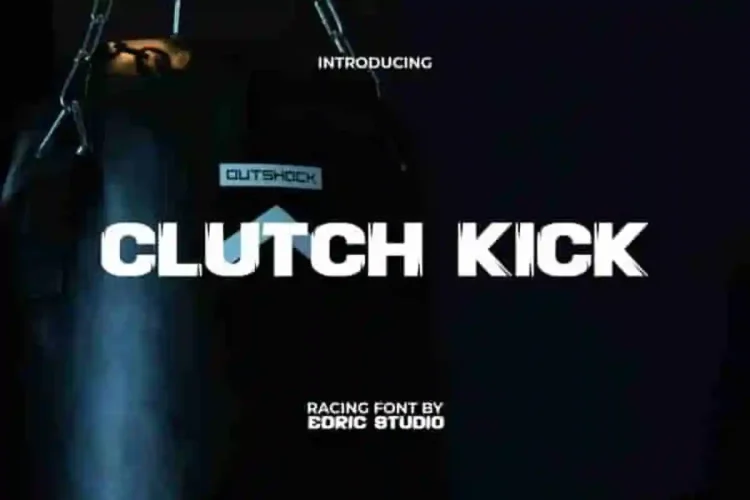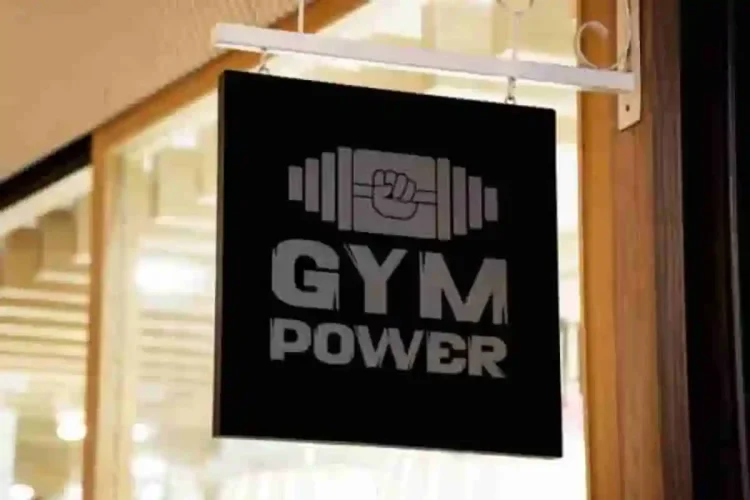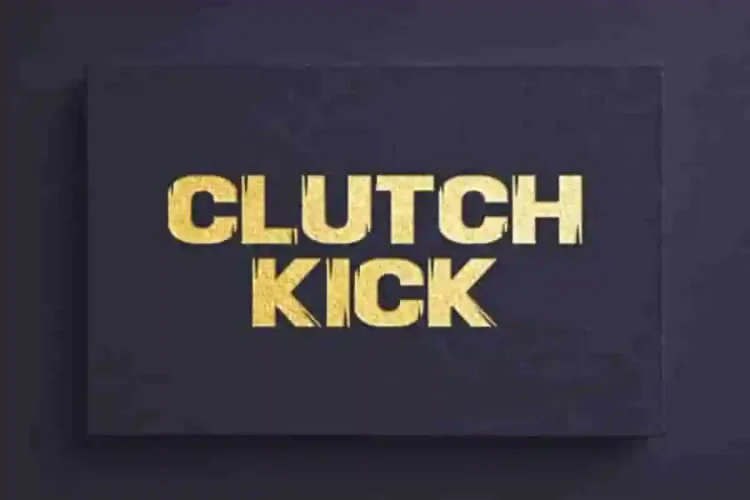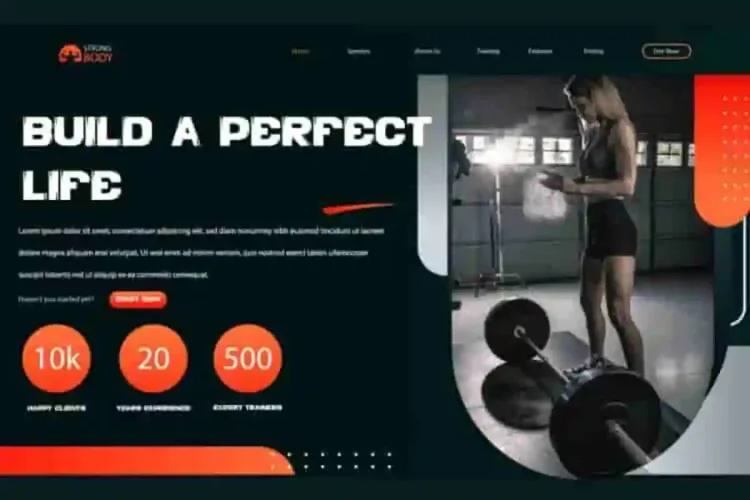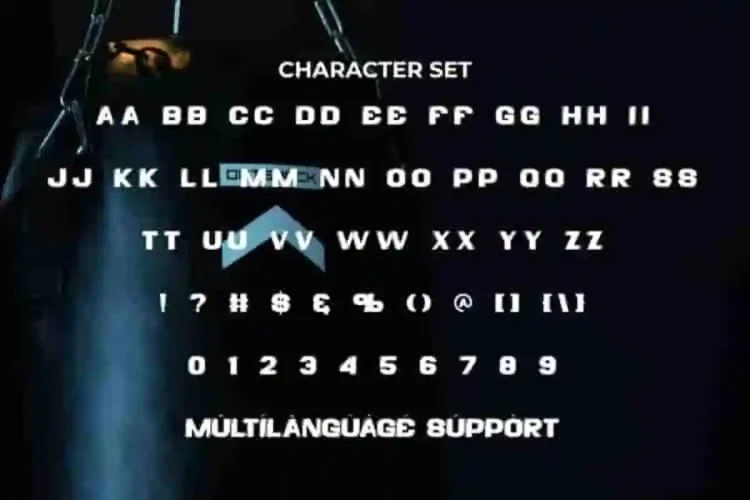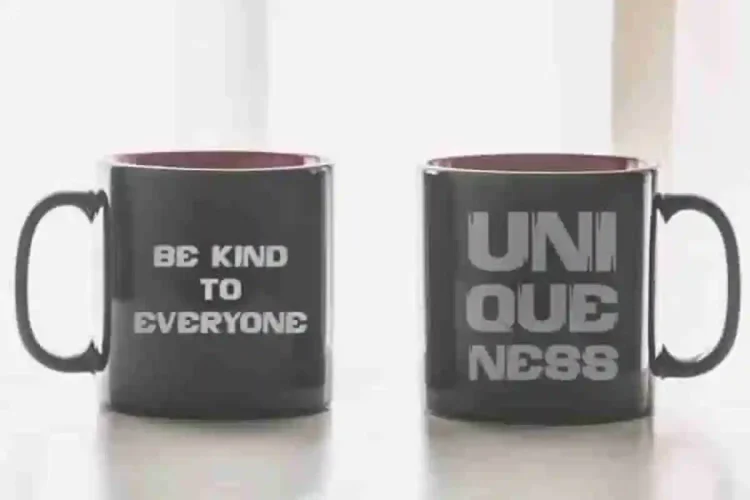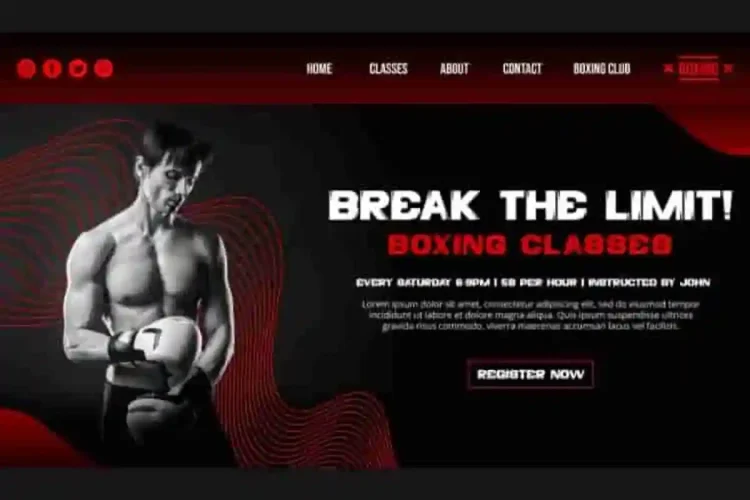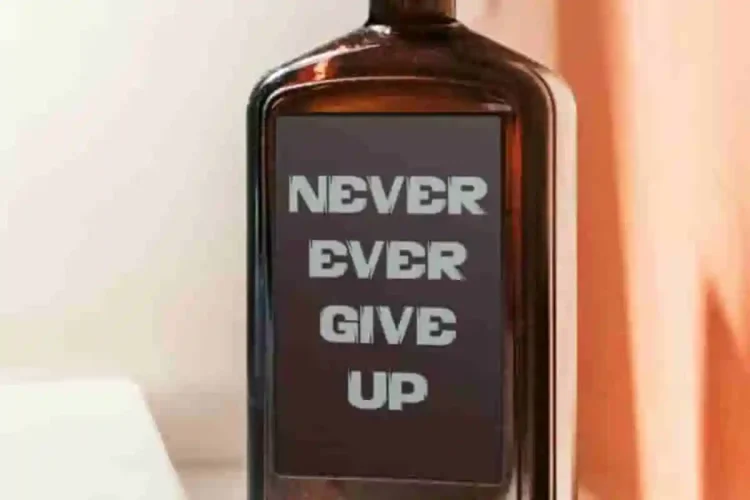
Clutch Kick Modern Font is a powerful sporty display font with all capital letters in high contrast. This powerful typeface is perfect for apparel, cafeteria, crockery, film, fitness center, graphic design, menswear, movie, photography, race, and anything that requires a masculine sports look.
Clutch Kick Modern Display Font comes with a full set of ALL CAPS for Uppercase and Lowercase letters, Number, Punctuation, and Symbol. It introduces the sans serif sports display font collection type. With its courageous and dynamic character, it is an ideal choice for branding materials, logos, posters, print, stationery, t-shirt, type badges, and more.
Clutch Kick Font a playful typeface with unique decoration in each character. Combine different characters for a bespoke, handcrafted feel. It’s tested to work well in the Adobe Apps (Illustrator, Adobe InDesign, Adobe Photoshop) even work on Microsoft Word. Thanks to PUA encoding, every glyph and alternate character is accessible for custom creative control.